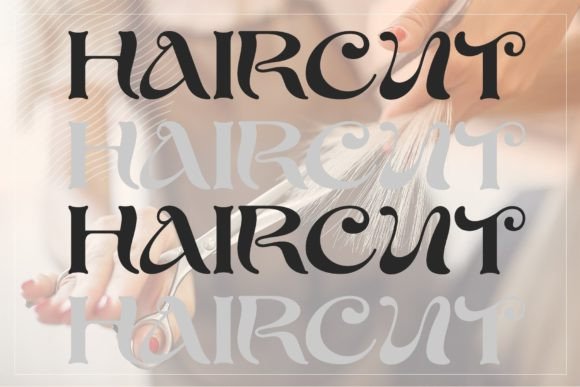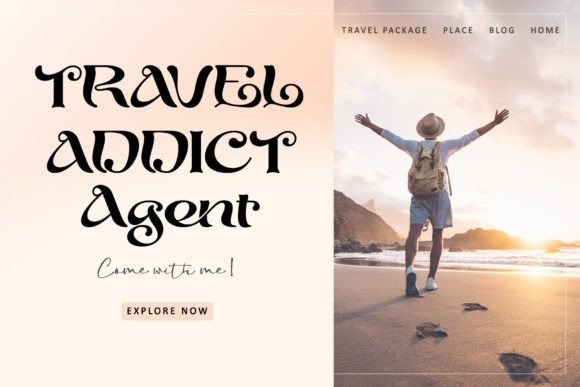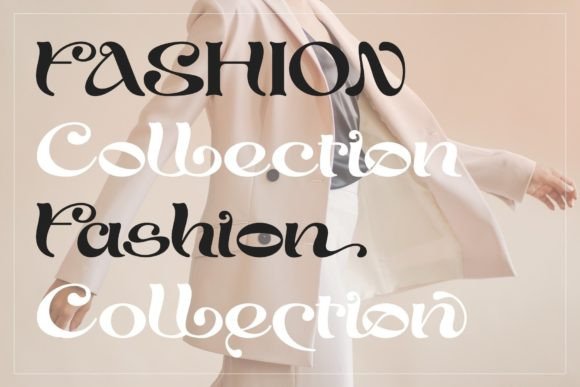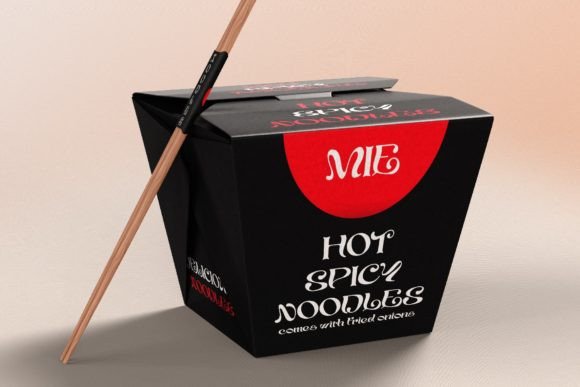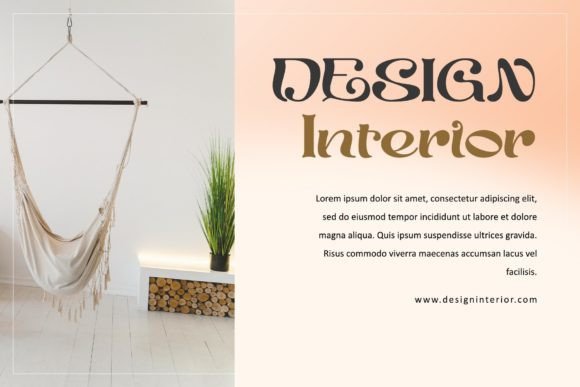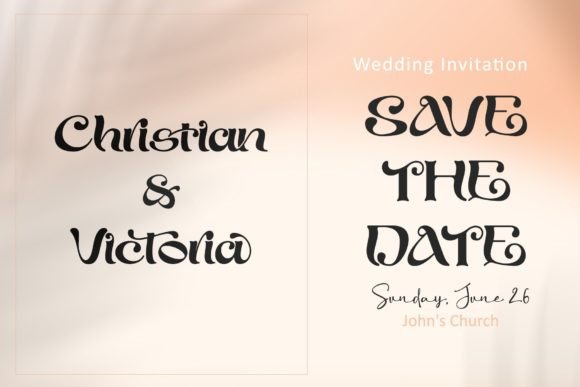
Introducing Agaste Font: Elevate Your Designs with Elegance and Sophistication
In the world of typography, a font can make or break a design. It’s the foundation upon which your creative vision is built, and choosing the right one can be a daunting task. If you’re on the hunt for a stylish and elegant serif font that can elevate your designs to new heights, look no further than Agaste Font. This versatile and cool font is perfect for a wide range of design projects, from luxury branding to editorial design, and everything in between.
What Makes Agaste Font So Special?
Agaste Font boasts a unique and sophisticated style that’s sure to turn heads. Its serif design exudes elegance and refinement, making it an ideal choice for projects that require a touch of luxury. Whether you’re working on a high-end logo, a fashion magazine, or a cosmetic brand, Agaste Font is the perfect companion to help you achieve your design goals.
One of the standout features of Agaste Font is its range of alternates and ligatures. These additional glyphs allow you to experiment with different typography combinations, creating a truly unique and personalized design. With Agaste Font, you can mix and match different characters to craft a look that’s all your own.
A World of Creative Possibilities
So, what can you create with Agaste Font? The possibilities are endless! Here are just a few ideas to get you started:
- Luxury Logo and Branding: Use Agaste Font to create a sophisticated and memorable logo that reflects your brand’s values and personality.
- Classy Editorial Design: Elevate your magazine, newspaper, or book design with Agaste Font’s elegant and refined style.
- Magazines and Packaging: Make a statement with Agaste Font’s bold and eye-catching design, perfect for magazine covers, product packaging, and more.
- Poster and Movie: Create a stunning poster or movie title sequence with Agaste Font’s cinematic and dramatic flair.
- Cosmetic Brand and Fashion Promotions: Use Agaste Font to add a touch of glamour and sophistication to your cosmetic brand or fashion promotion.
- Weddings and Fashion: Make your wedding or fashion design truly unforgettable with Agaste Font’s romantic and elegant style.
- Art Gallery Branding: Showcase your art with Agaste Font’s refined and cultured design, perfect for art gallery branding and exhibitions.
Why Choose Agaste Font?
- Unique and Stylish: Agaste Font’s elegant serif design sets it apart from other fonts on the market.
- Versatile: Use Agaste Font for a wide range of design projects, from luxury branding to editorial design.
- High-Quality: Agaste Font is designed with high-quality craftsmanship, ensuring a professional finish every time.